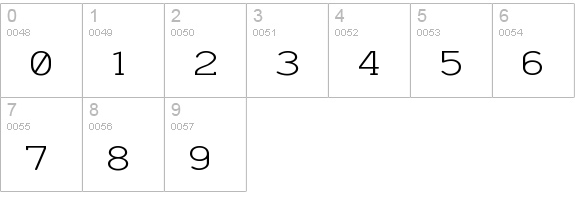
Charrington Wide Font Details
Charrington Wide is a distinctive, extended-width variant in the Charrington typeface family \xE2\x80\x94 well suited to design and typography projects.
Charrington Wide font is a versatile and elegant typeface that exudes a sense of sophistication and modernity. With its wide letterforms and sleek design, this font is perfect for a variety of design projects, from branding to editorial design. The clean lines and balanced spacing of Charrington Wide make it a highly legible choice for both display and text use. What sets Charrington Wide font apart is its unique blend of classic and contemporary elements, making it a truly timeless choice for any designer. Whether you're working on a print design or a digital project, Charrington Wide font will add a touch of refinement and style to your work. The best part? Charrington Wide font is available for free download at FontsMarket.com, so you can start using it in your projects right away. Don't miss out on this opportunity to elevate your designs with the elegant and versatile Charrington Wide font.